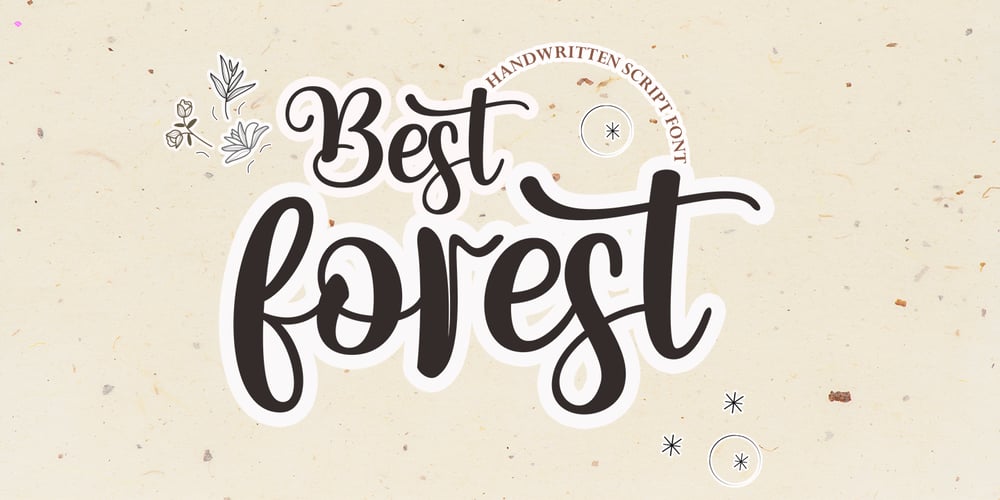
Best Forest Font Family was designed by Rahmad Rizky and published by Rhd Studio. Best Forest contains 1 styles and family package options. Best forest is a modern handwritten script font.This font is perfect for svg designs, shirts, crafts, websites, farmhouse décor, branding, blogs, logos, invitations, and more!Most accent characters are included.Thank you!